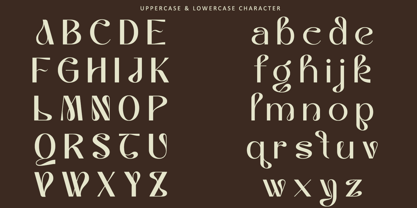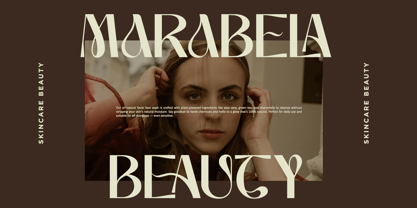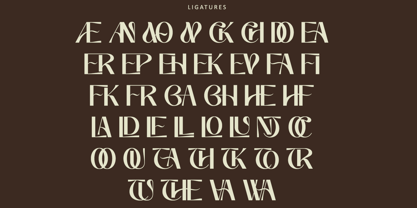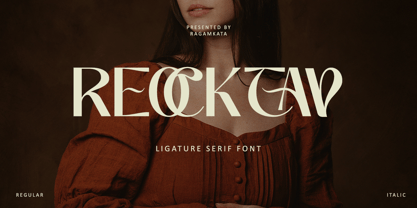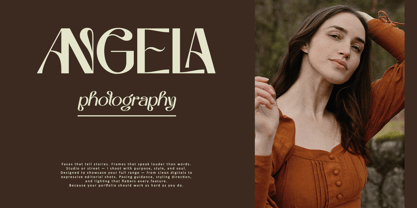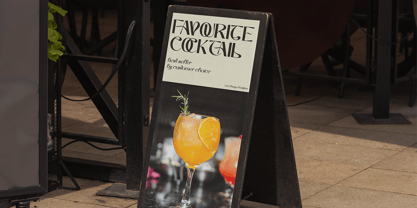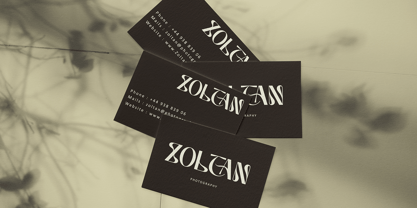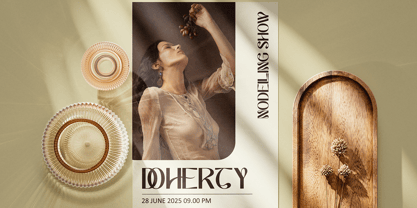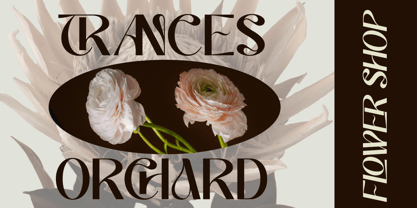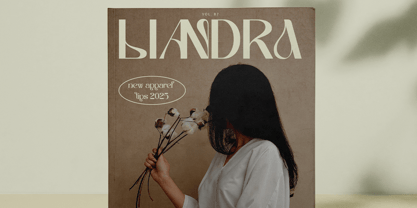
Reoctav
Reoctav is a luxurious serif typeface that embodies timeless elegance and refined beauty with several ligatures to seamlessly blend sophistication with modern refinement. Designed with thin yet striking letterforms that are carefully crafted, Reoctav seamlessly blends sophistication with modern refinement making it perfect for high-end branding, editorial, invitations, and sophisticated logo designs.